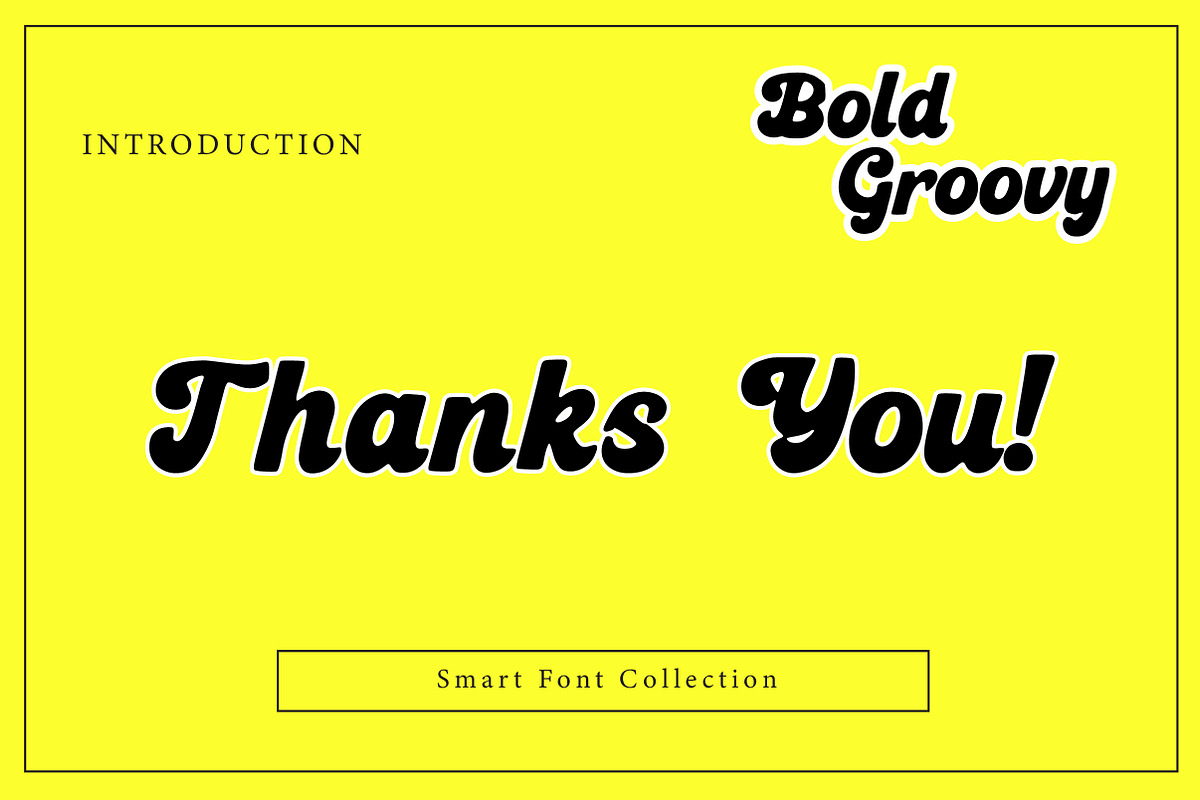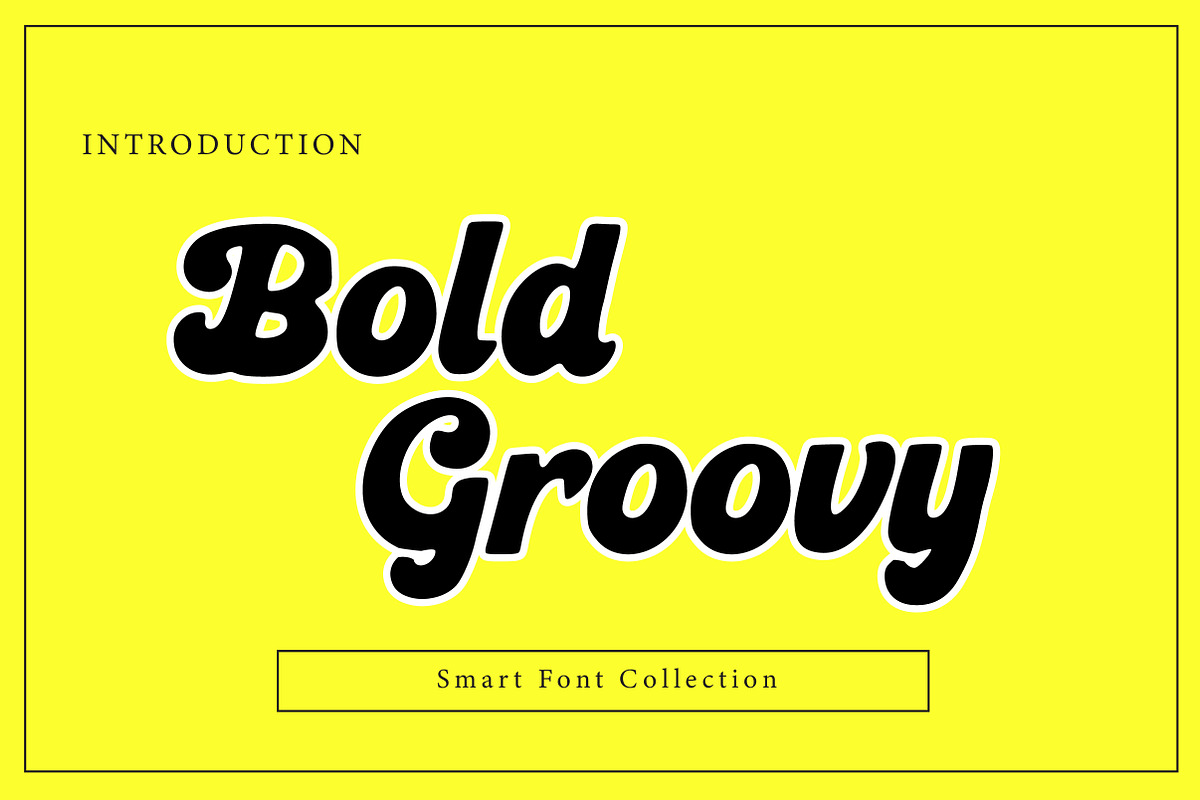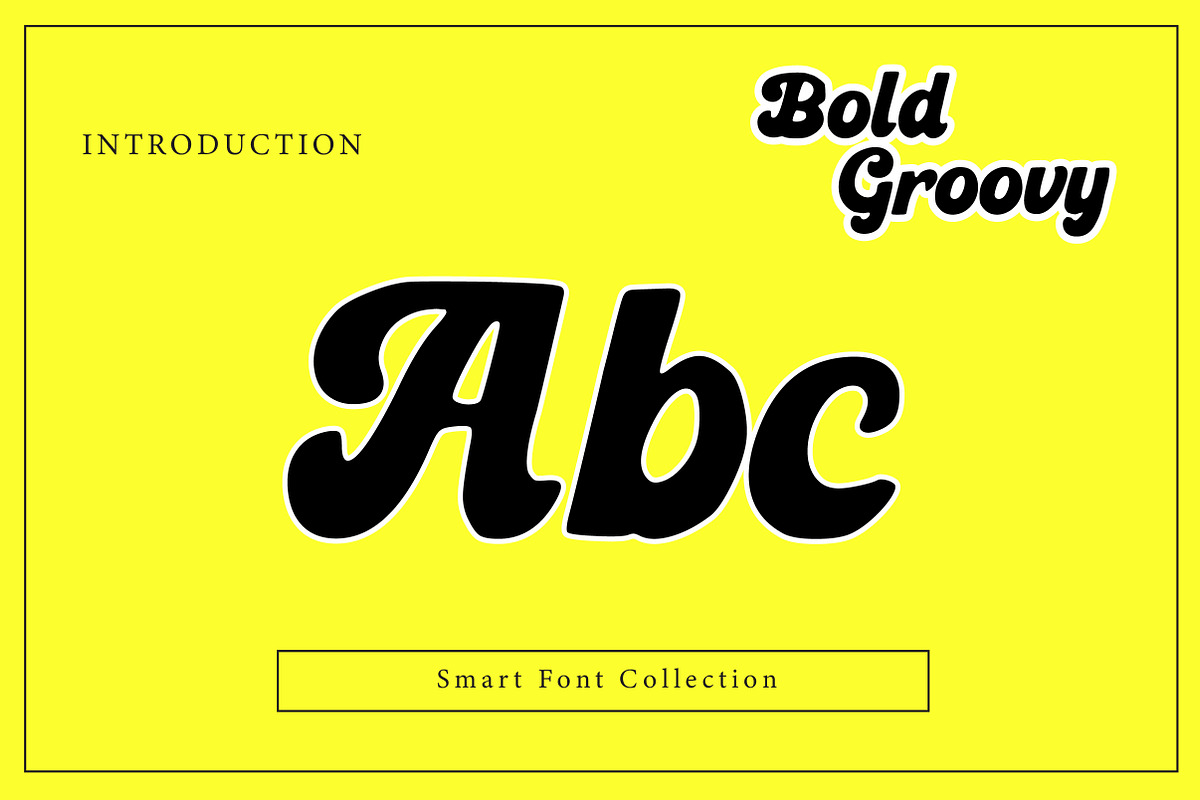
Bold Groovy
Bold Groovy is a fun, playful, and eye-catching display typeface inspired by retro and groovy design styles. The font features thick, rounded strokes with smooth curves and a lively rhythm that instantly creates a cheerful and energetic vibe. Its bold and funky personality makes it perfect for designs that aim to feel joyful, creative, and nostalgic while still remaining modern and readable.